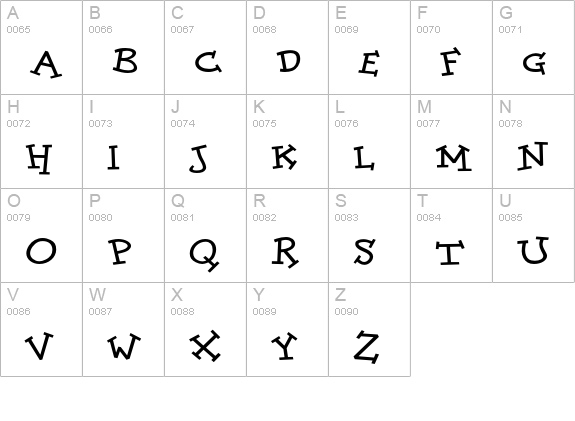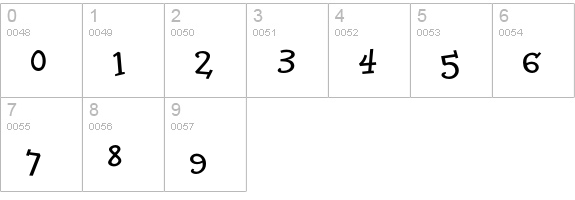
DoloresBold Font Details
DoloresBold is a modern and stylish font that exudes confidence and boldness. With its sleek lines and distinctive design, this font is perfect for making a statement in your designs. Whether you're creating a logo, website, or any other project, DoloresBold will grab attention and leave a lasting impression. The best part? DoloresBold is completely free to download at FontsMarket.com. You can easily add this eye-catching font to your collection without breaking the bank. Don't miss out on the opportunity to enhance your designs with the striking look of DoloresBold. Download it now and let your creativity shine!